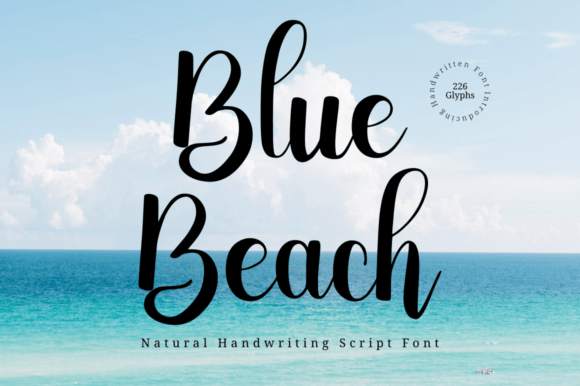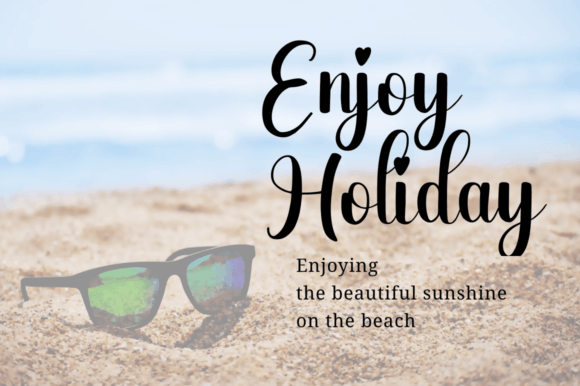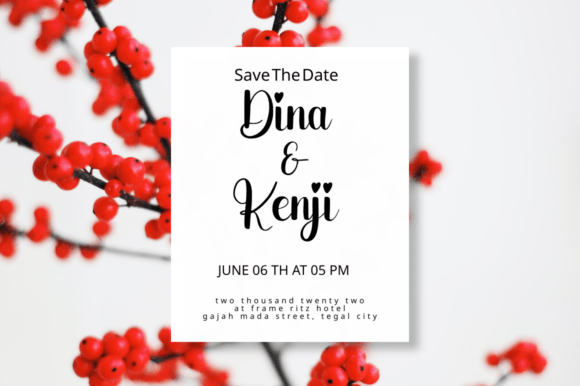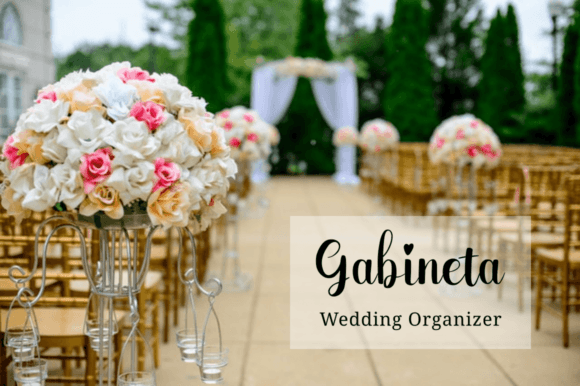
Blue Beach Font
About the Blue Beach Font
Let us introduce you to Blue Beach Font, where timeless design meets modern craftsmanship. Blue Beach is a beautiful and natural handwritten font perfect for
logotypes, headlines, corporate identity, brand identity, apparel industry, posters, music, movies, games, magazines, books, comics, cartoons, YouTube, Instagram, websites, or any of your creative design projects.
Blue Beach’s casual, slightly imperfect strokes make it ideal for headlines, branding projects needing a touch of handcrafted authenticity, and packaging that conveys a relaxed, approachable feel. It works well in posters and short-form content where its charm is highlighted. However, its less-than-optimal legibility makes it unsuitable for body text or UI elements requiring extended reading.
This font’s personality is friendly and approachable, yet possesses a subtle sophistication. Therefore, pairings with clean sans-serif fonts like Montserrat or Open Sans create a balanced contrast, grounding its playful nature. For a more luxurious feel, consider pairing it with a classic serif like Garamond or a delicate script font like Great Vibes, depending on the desired level of formality.
Avoid using Blue Beach in situations demanding high readability over extended text lengths. Its informal quality might clash with brands projecting seriousness or high formality.
Blue Beach Font Usage Examples
Blue Beach Font Example